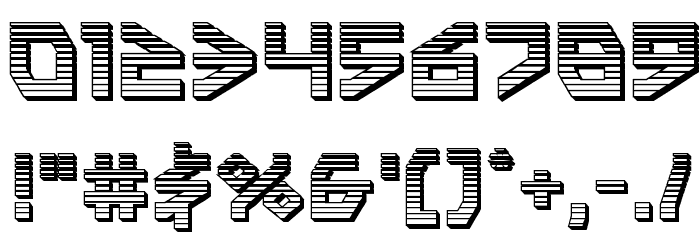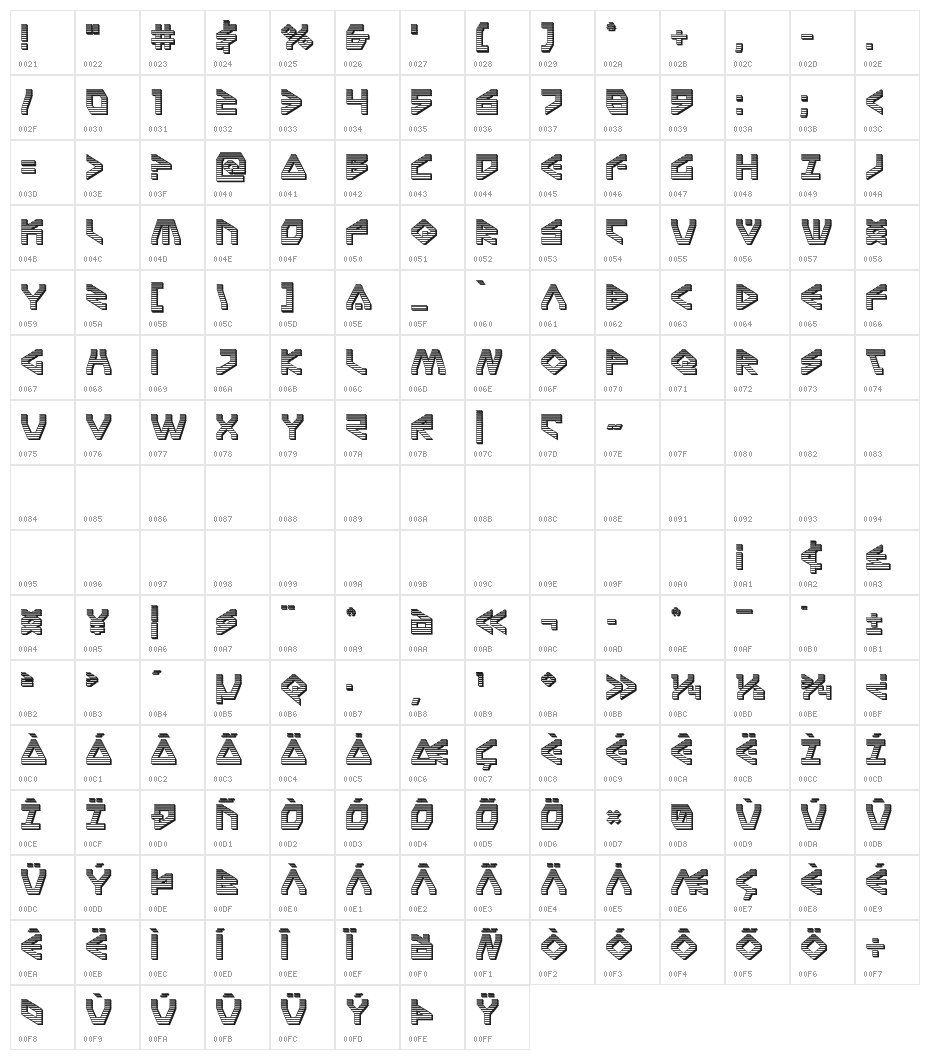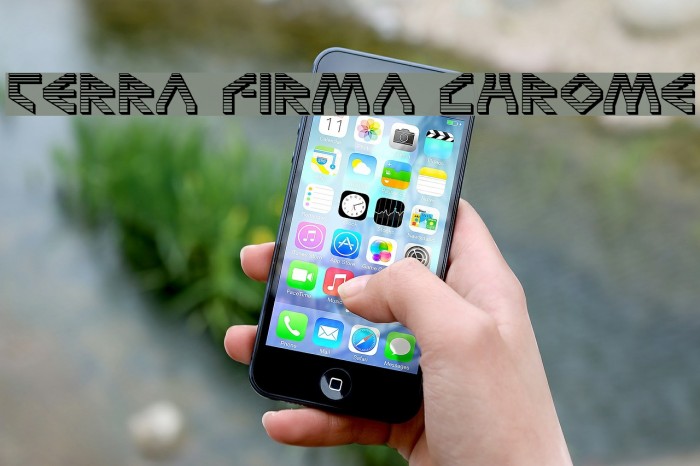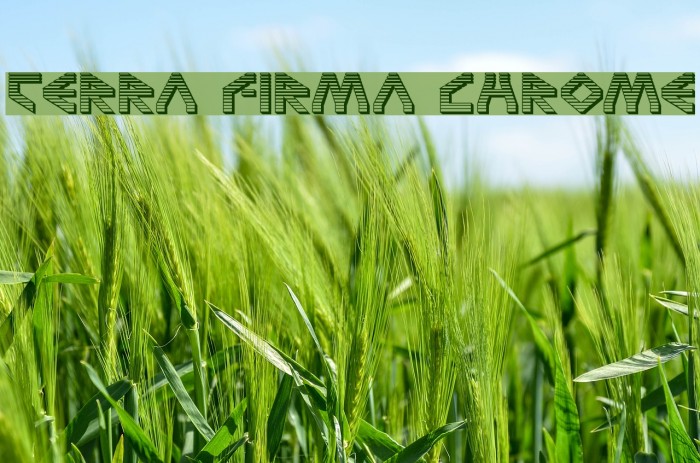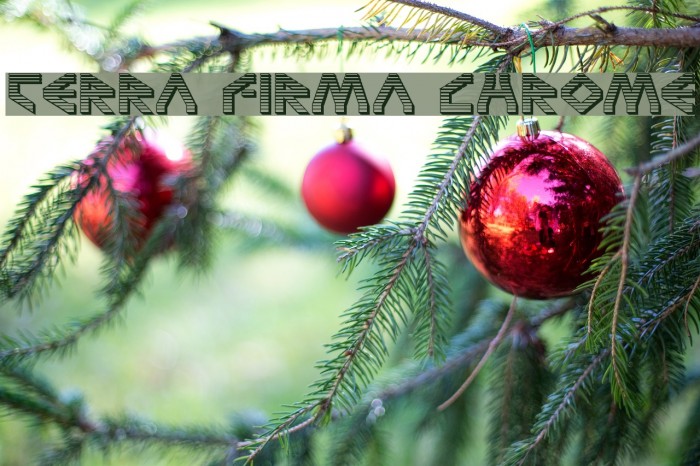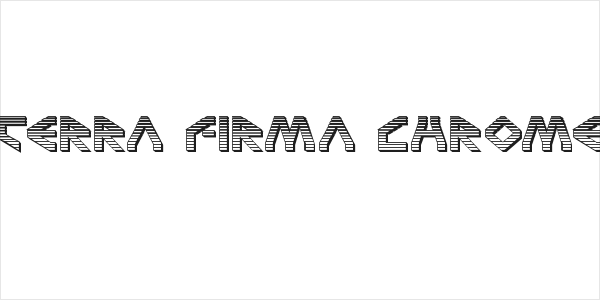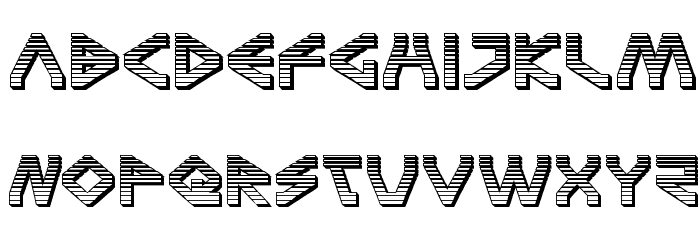
Terra Firma Chrome Font
Terra Firma Chrome Description
This font features a bold, futuristic design with a three-dimensional effect created by parallel lines that give each character a sense of depth and movement. The geometric shapes are sharp and angular, contributing to a modern and edgy aesthetic. Each letter and number is distinct, with a consistent pattern of horizontal stripes that add texture and visual interest. The special characters maintain the same stylistic elements, ensuring uniformity across the entire set. This font is ideal for projects that require a standout, contemporary look.
| Proposed Projects | Ideal for sci-fi themed posters, modern branding, video game titles, and tech-related graphics. |